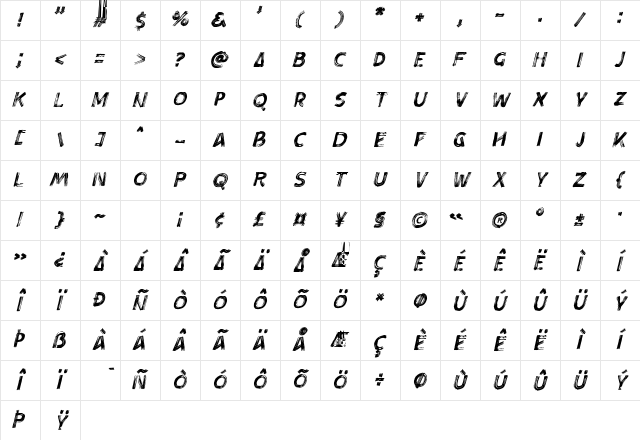
Aloha Brush - Demo Version It Regular
Foundry: Nirmana Visual
Designer: Sigit Dwipa Raharjo
Design Context for Aloha Brush - Demo Version It
Aloha Brush - Demo Version It flows with the natural rhythm of handwritten lettering, making it ideal for designs that call for warmth and personal expression.
Font Pairing: Combine Aloha Brush - Demo Version It with a simple geometric sans for maximum contrast - the tension between flowing curves and clean structure is a classic typographic pairing.
Pro Tip: Use Aloha Brush - Demo Version It for short runs of text - names, titles, or taglines. Extended body copy in script faces tires the eye quickly.